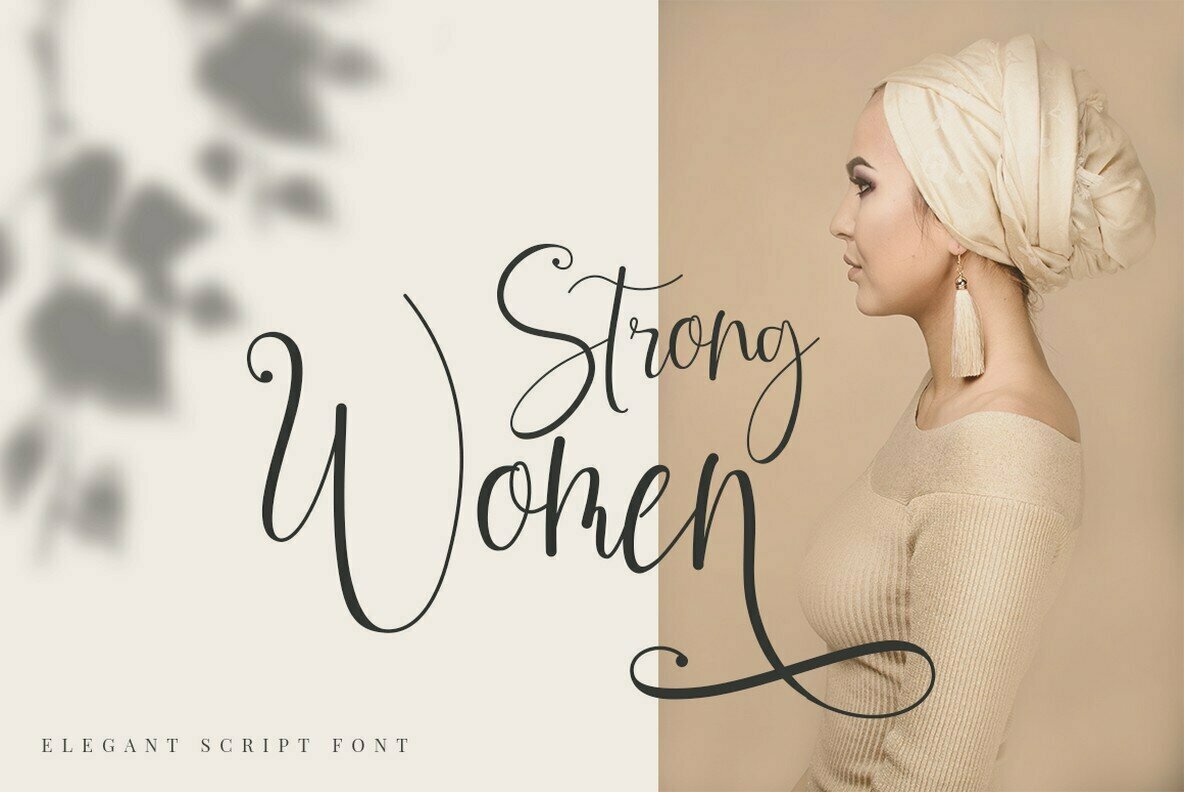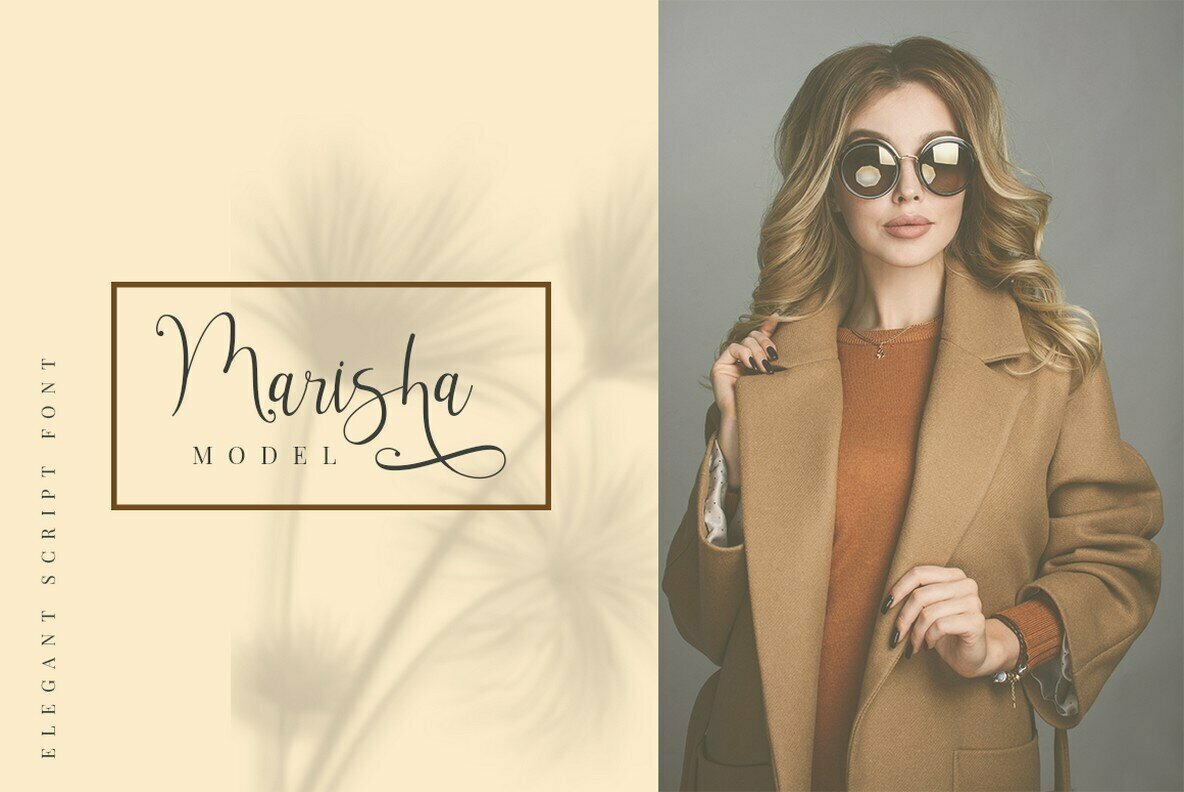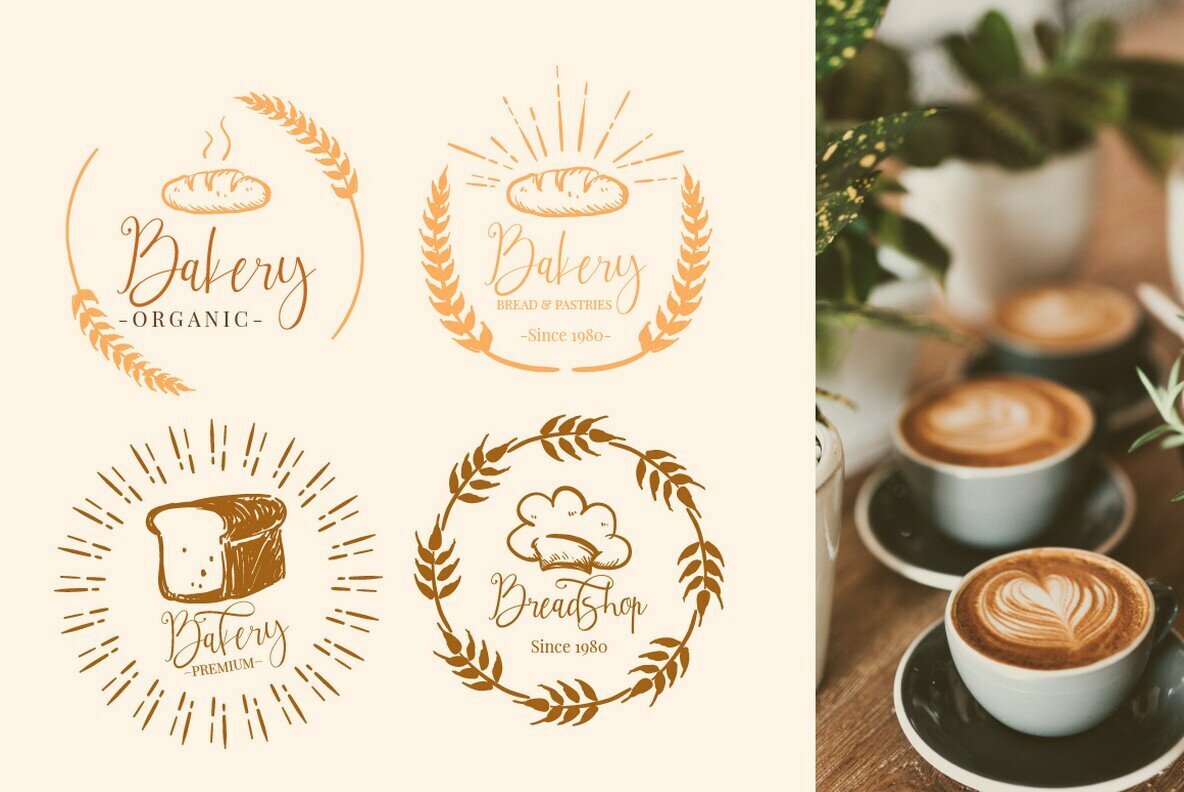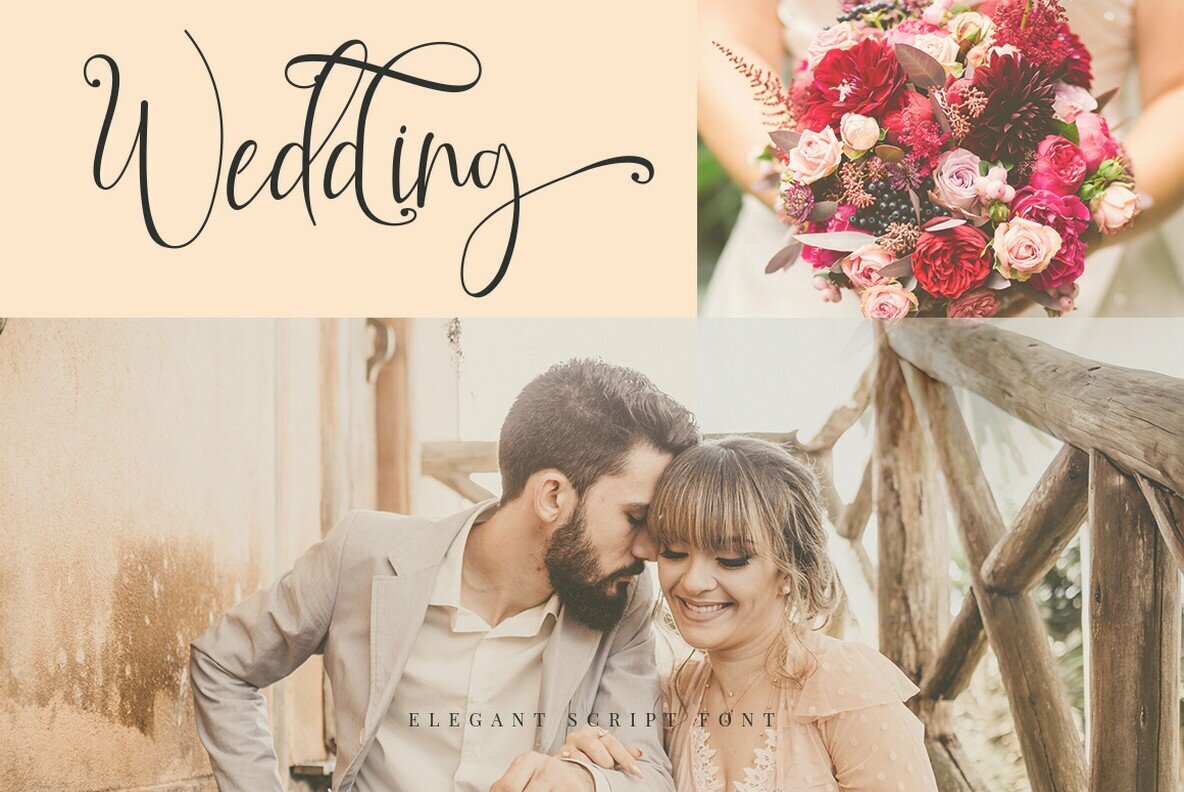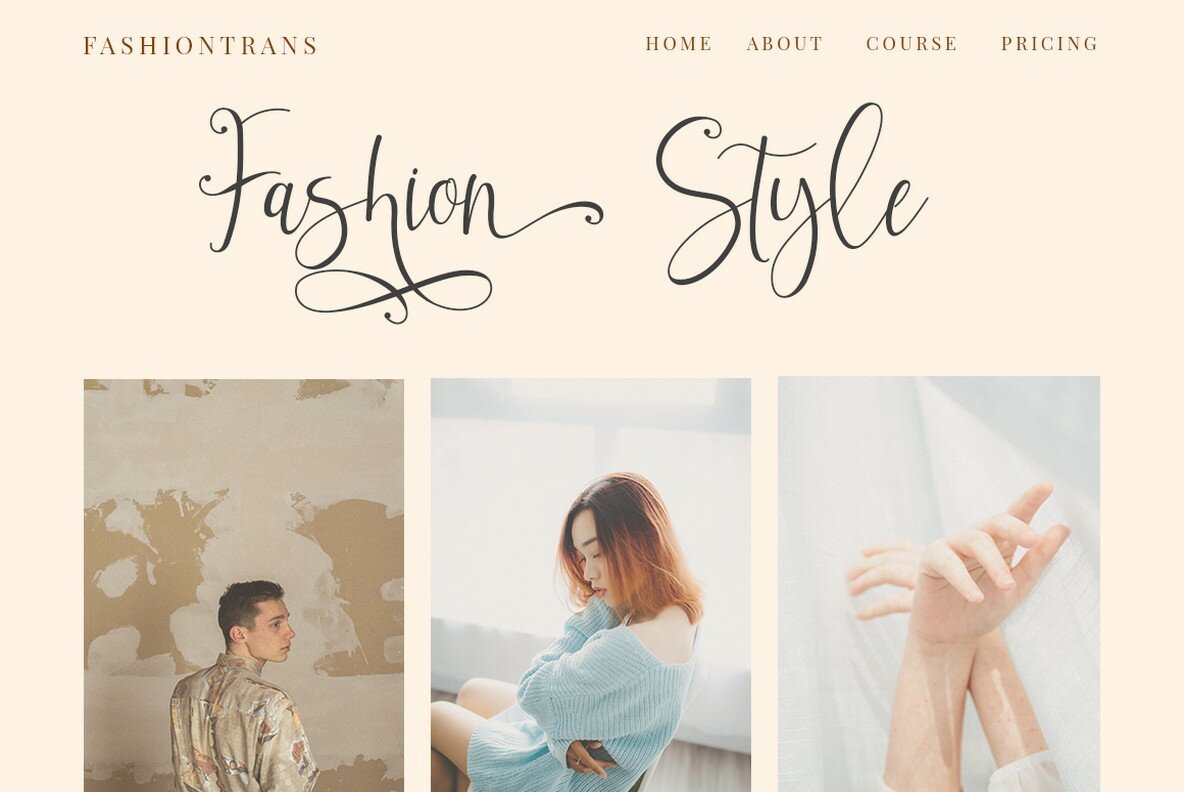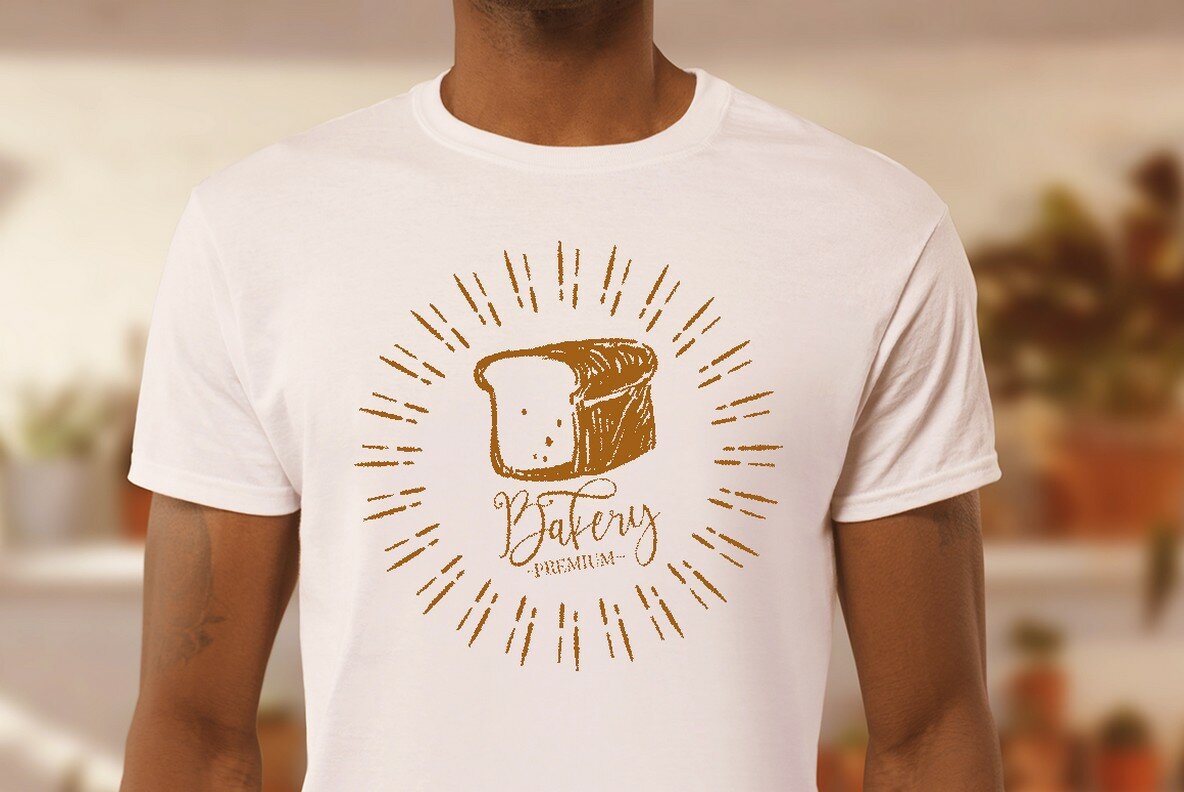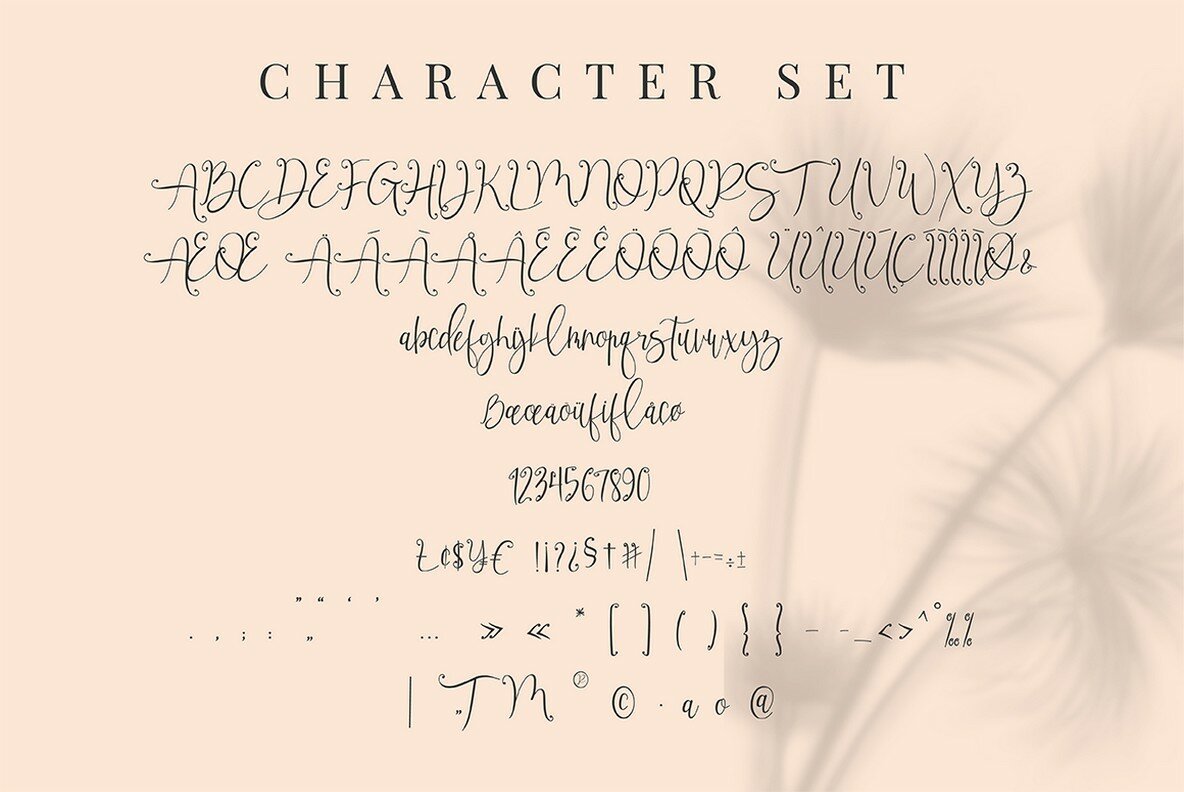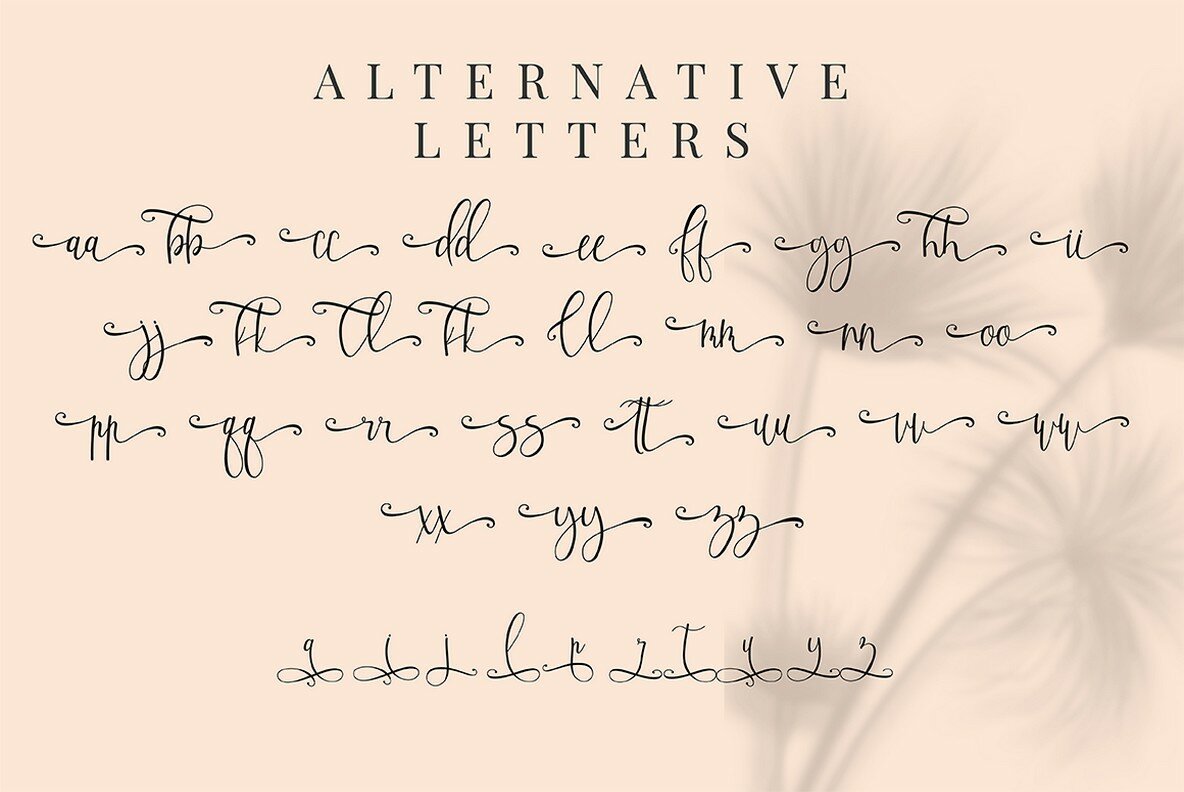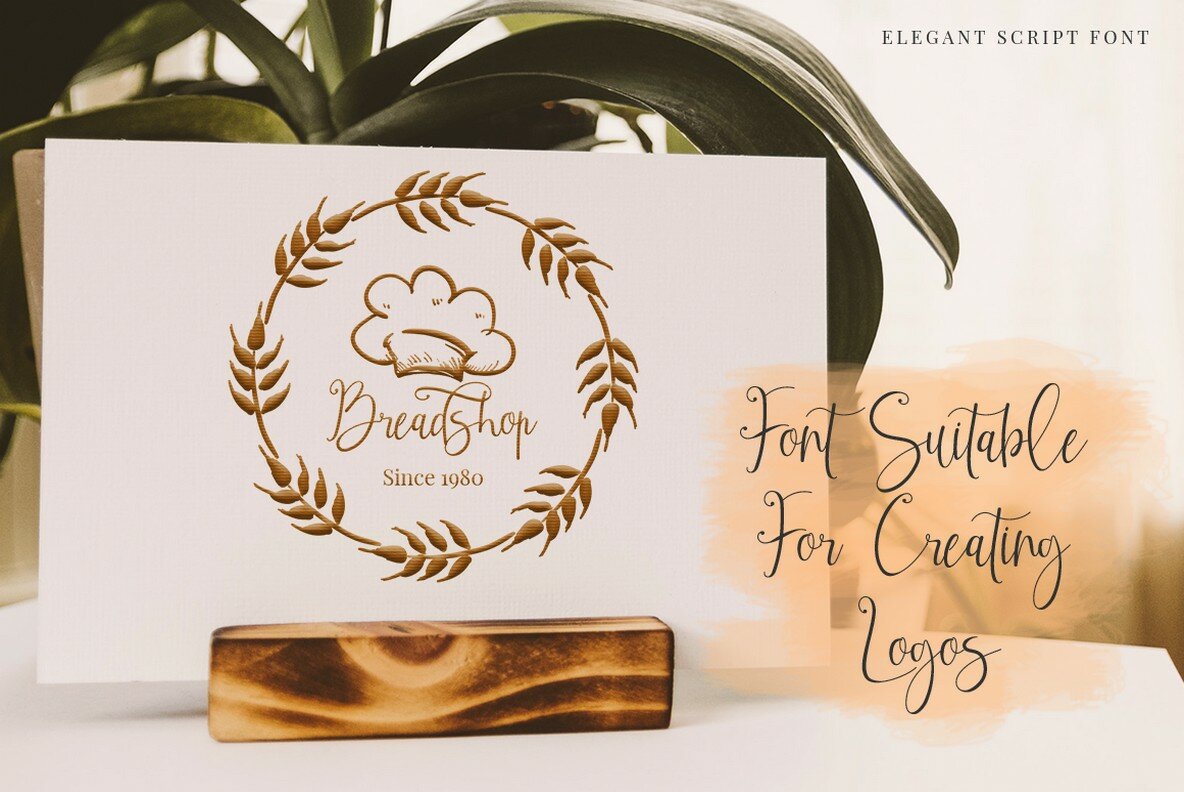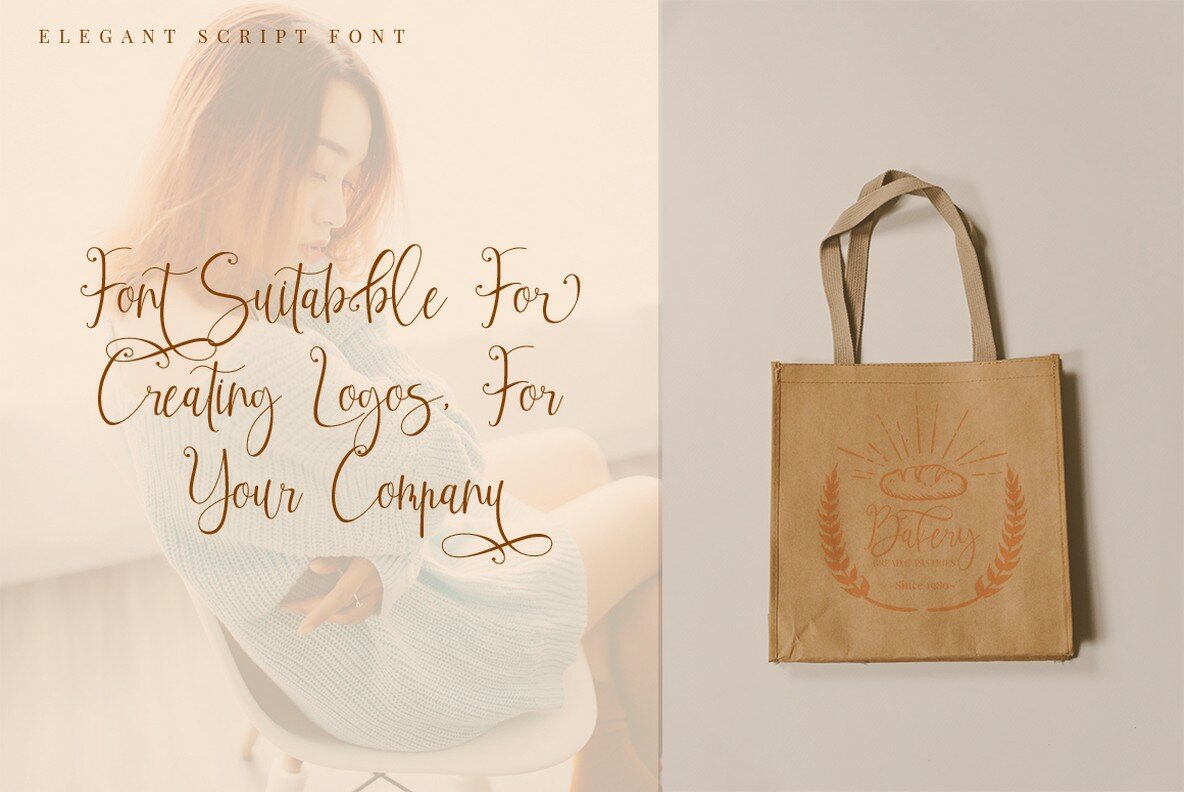
Amarithe Font
Amarithe
Amirithe offers a blend of femininity, elegance, and modernity, ideal for those seeking a distinctive calligraphy style. This handwritten font is perfect for wedding events, anniversaries, birthdays, and greeting cards. It also enhances logotype projects, branding, wedding invitations, posters, and packaging with its sophisticated design. Designed with an open type feature, Amirithe provides numerous alternates that assist in crafting exquisite lettering. Its multilingual support ensures versatility, catering to a wide array of projects requiring an elegant touch.Amirithe: A Luxurious Modern Calligraphy Font